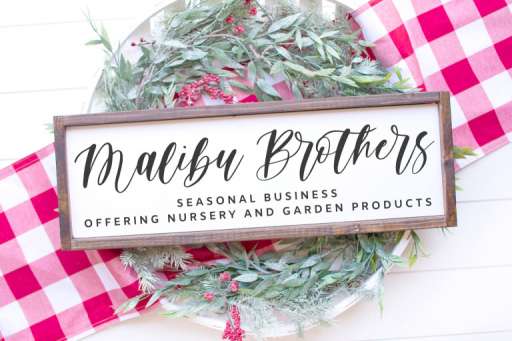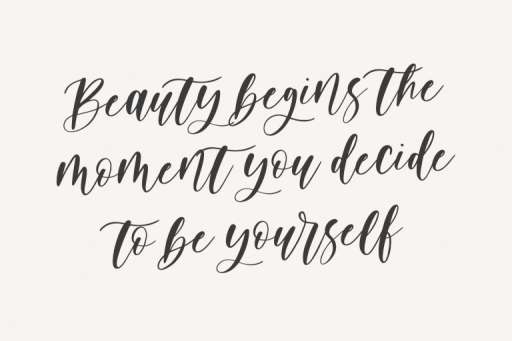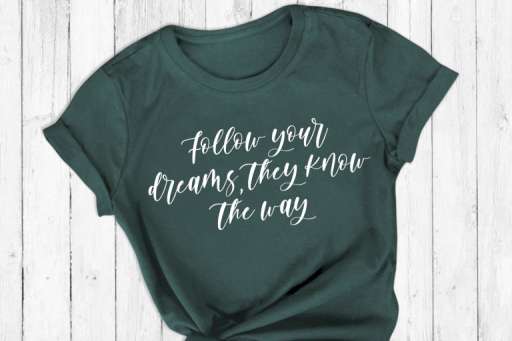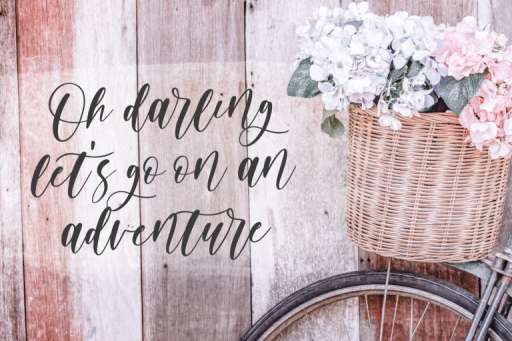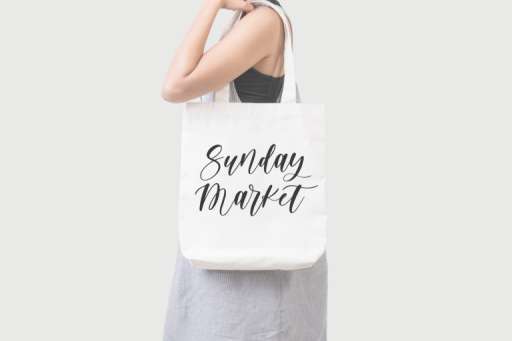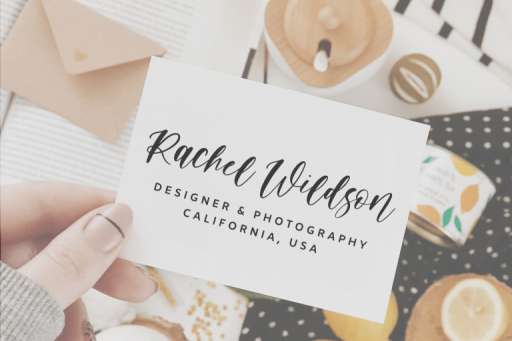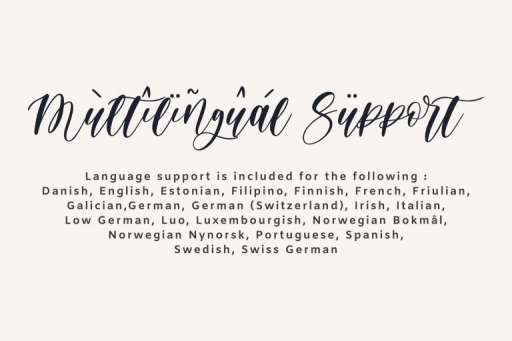
Apricot Farmhouse Font
Apricot Farmhouse – Modern Script Font
Apricot Farmhouse is a modern script font, classy, readable, stylish, catchy, and easy to use. This Font is a great choice for branding, logos, wedding decor, quotes, web, svg design, stickers, farmhouse design, album cover, watermarks, and much more!
Apricot Farmhouse Features :
• Multilingual